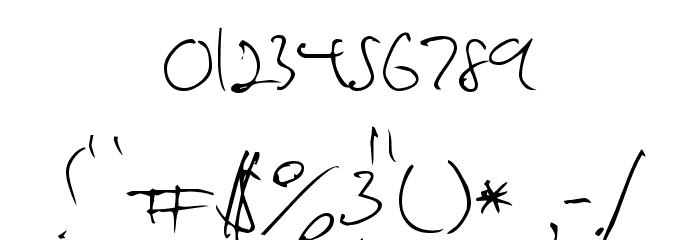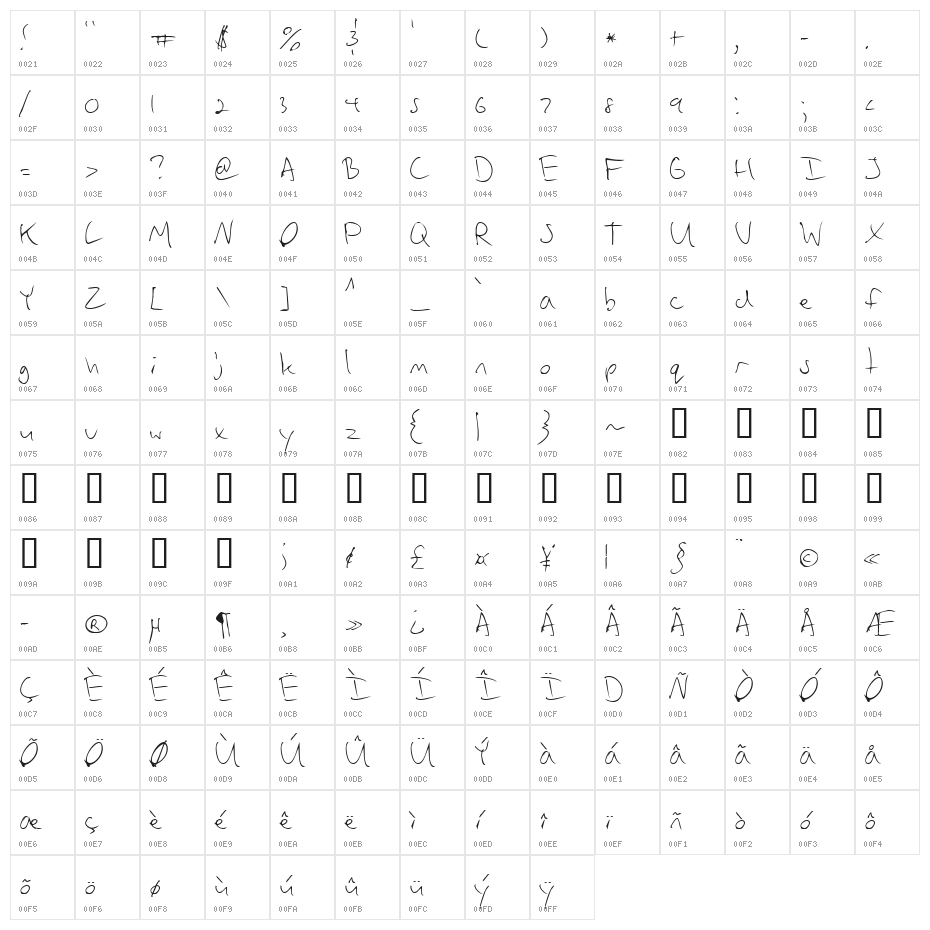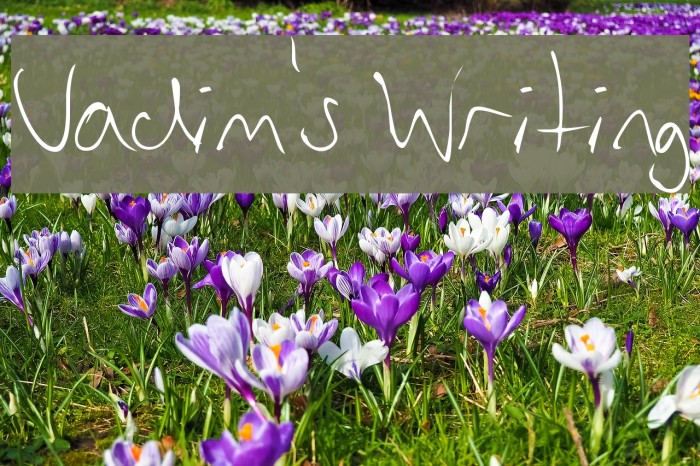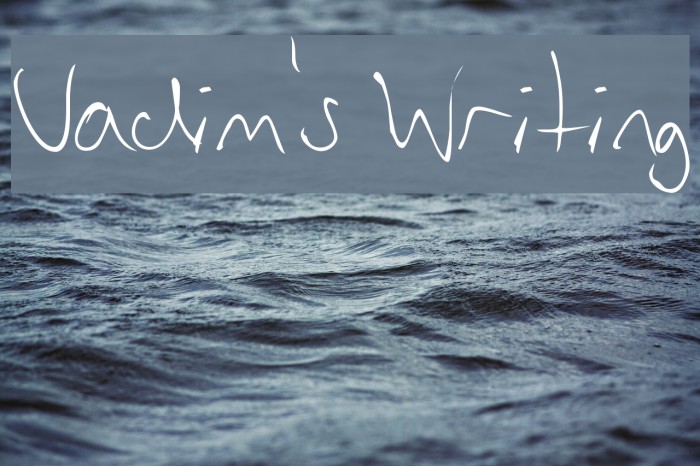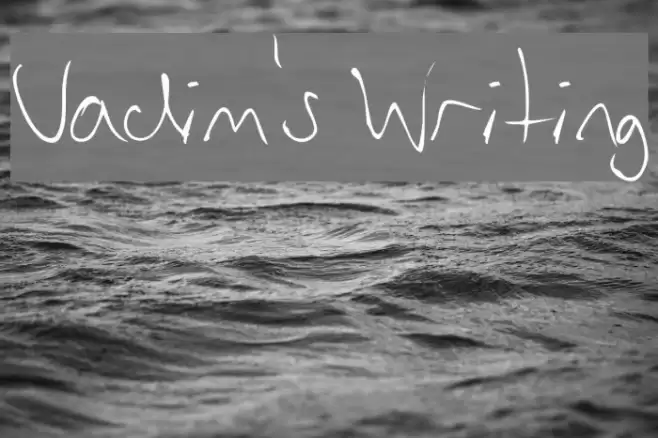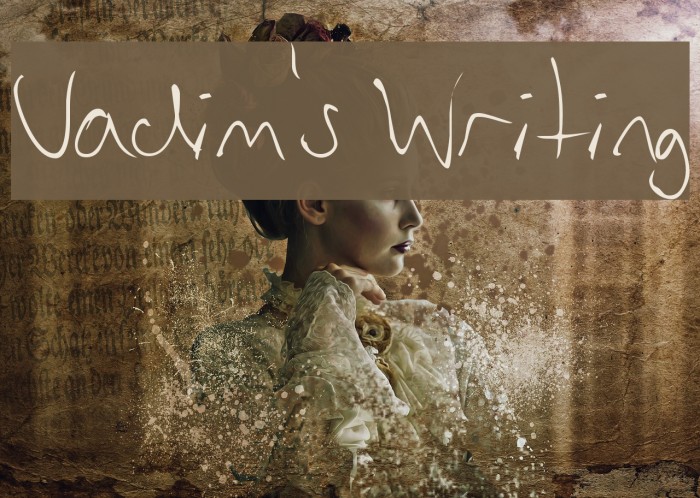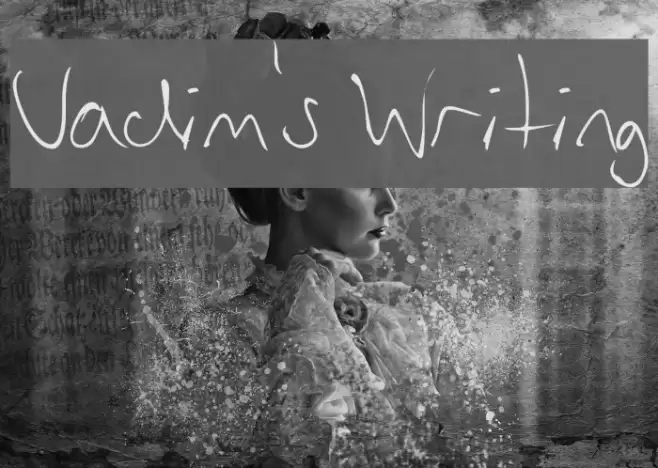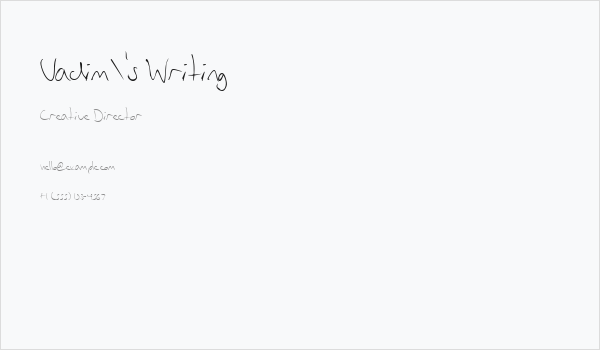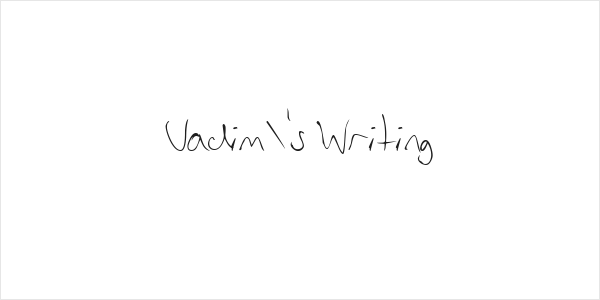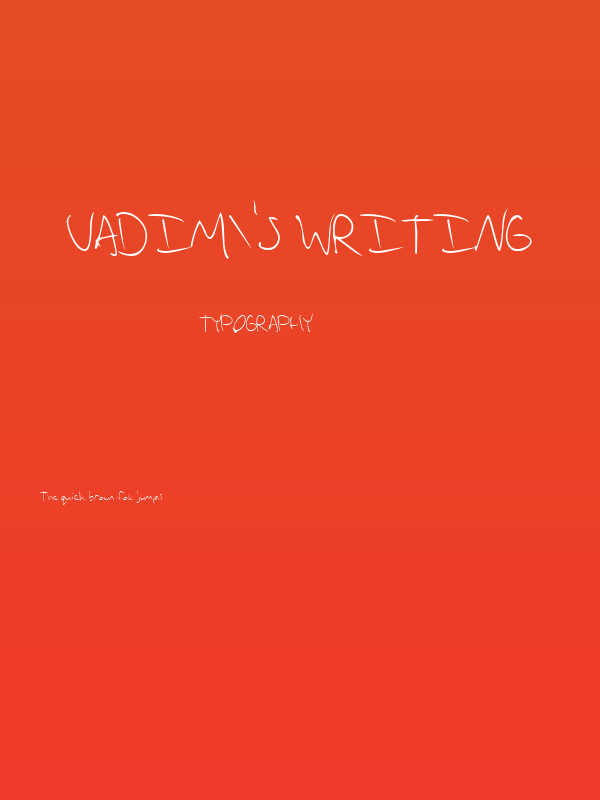
Vadim's Writing Font
Vadim's Writing Description
This font exhibits a casual, handwritten style with a playful and informal appearance. The characters are irregular and dynamic, giving a sense of spontaneity and personal touch. The strokes are uneven, with varying thickness that adds to the organic feel of the writing. The uppercase and lowercase letters maintain a consistent style, with some letters featuring unique flourishes and loops. The numerals and special characters follow the same handwritten aesthetic, ensuring a cohesive look across all glyphs. This font is ideal for projects that require a personal or creative touch, such as invitations, greeting cards, or artistic designs.
| Use Case | Artistic designs, Personal projects |
| Proposed Projects | Ideal for invitations, greeting cards, artistic designs, and personal projects. |